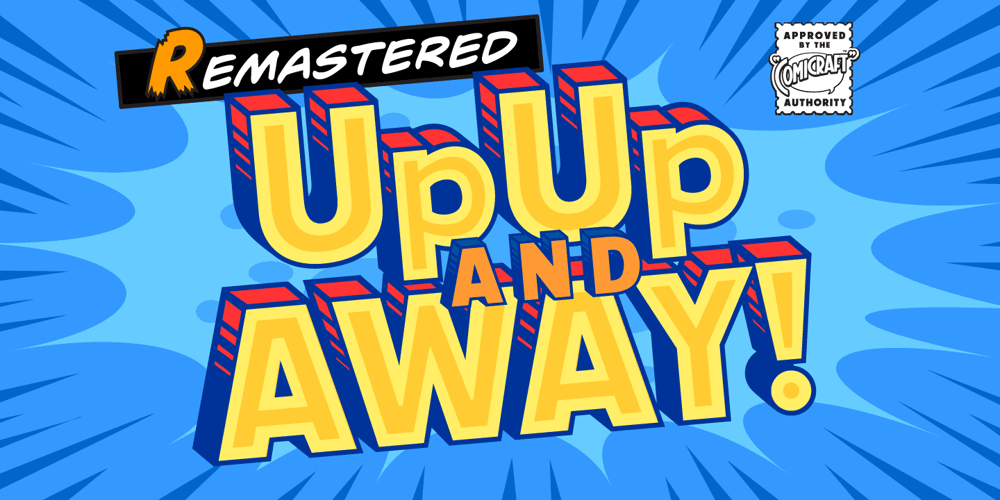
Up Up And Away Font Family was designed by John Roshell and published by Comicraft. Up Up And Away contains 6 styles and family package options. Is it a Bird? Is it a Plane? Is it a Rocket? No it’s another Super Font from those awfully nice chaps at Comicraft. Faster than a speeding Option 8, Up, Up and Away can see through ‘O’s, jump Capital T in a single bound, and rescue caps dropped from the tallest descenders. There isn’t a more heroic or x-heighting font in our catalog and it’s as wholesome as truth, justice and mom’s apple pie. Brought to you in cut out form in association with our friends at Howtoons!Be sure to also check out Up Up And Away’s clever sidekick Single Bound!Comicraft fonts are created BY comic book letterers FOR lettering comic books. Accept no substitutes!